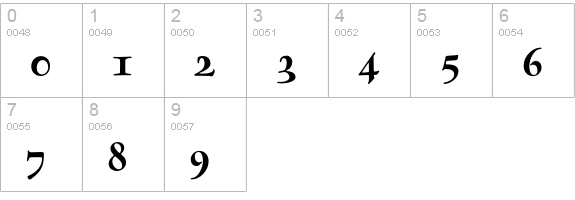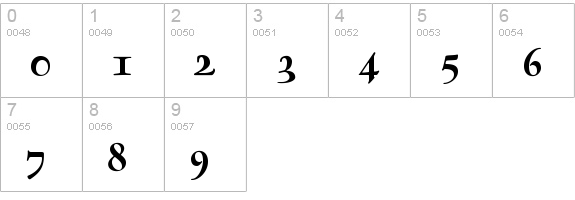
Oneleigh-Black is a maximum-weight, dramatic variant in the Oneleigh typeface family \xE2\x80\x94 well suited to maximum-impact headlines, posters, and packaging.